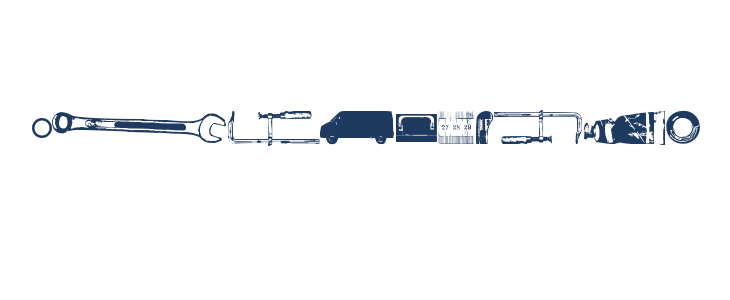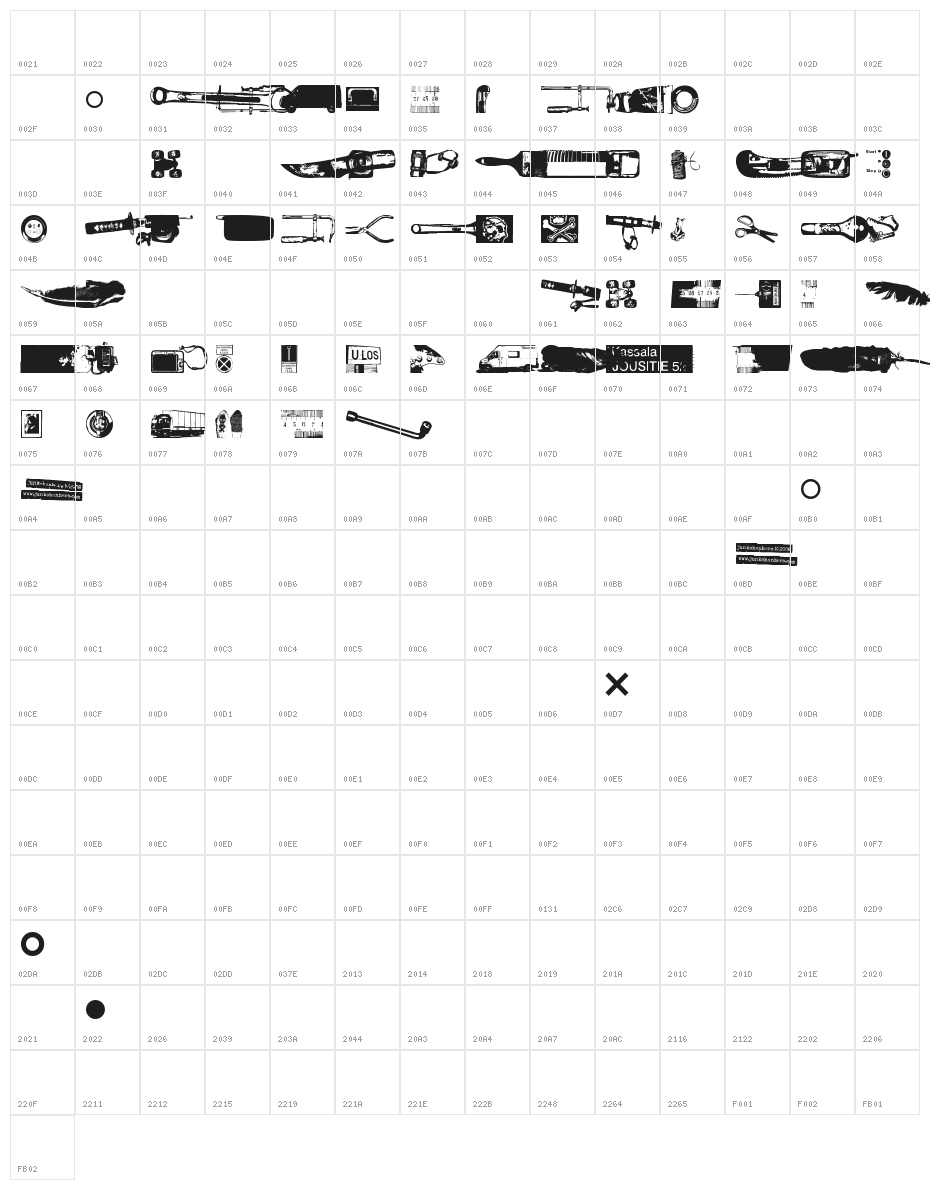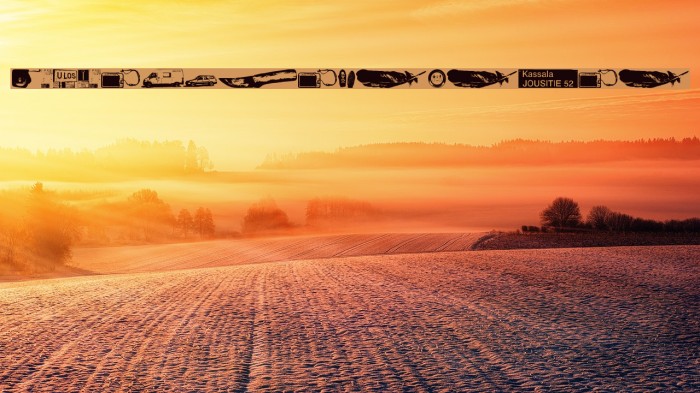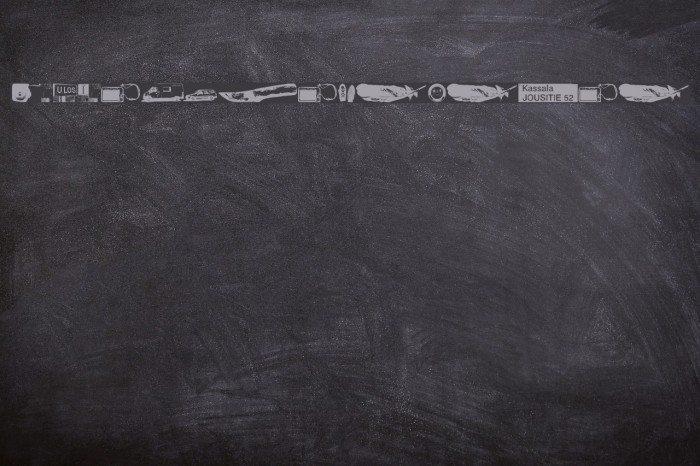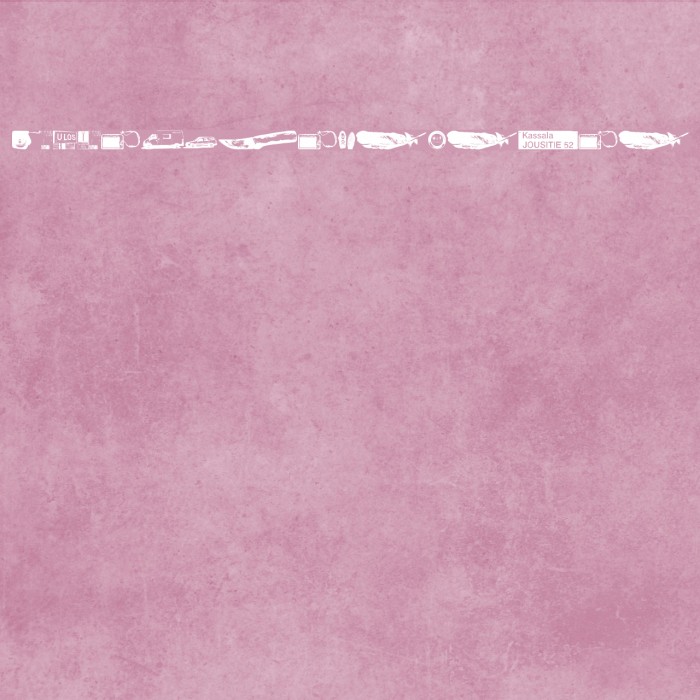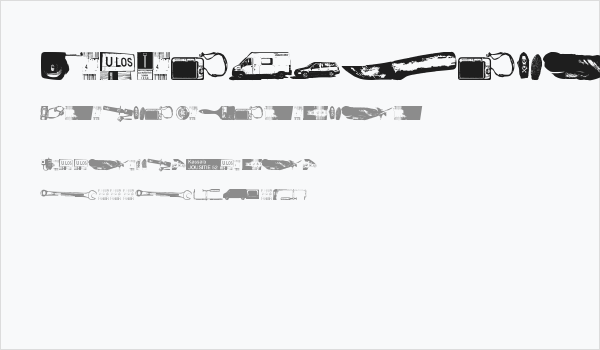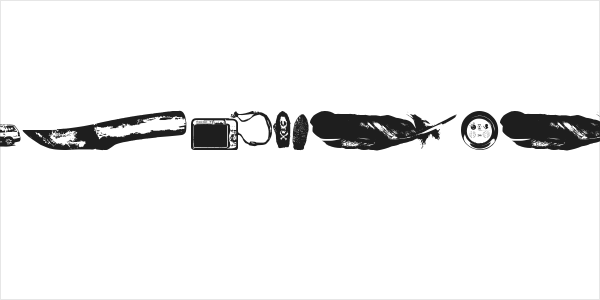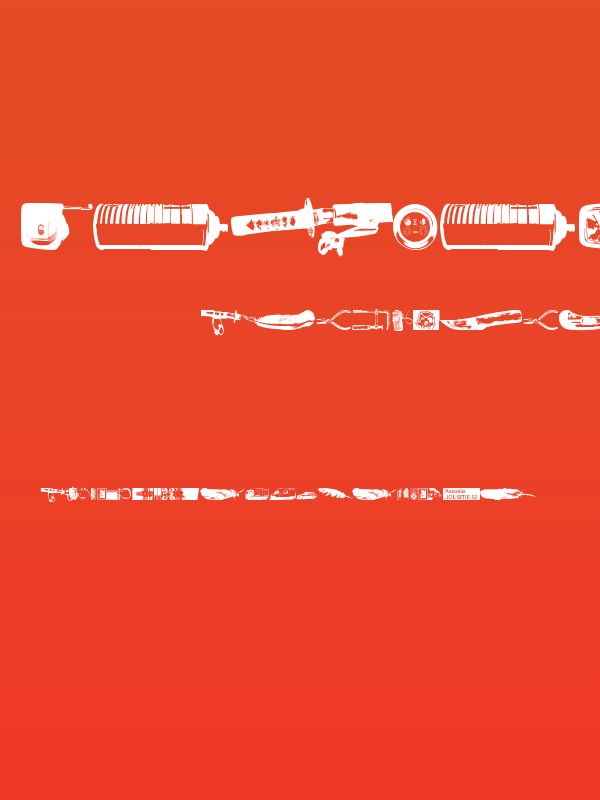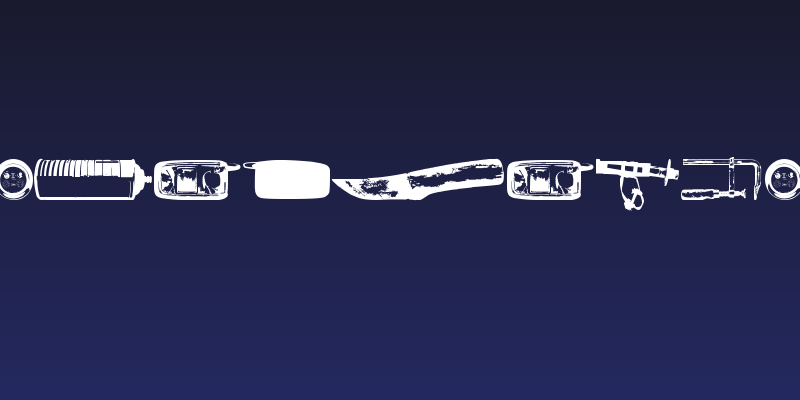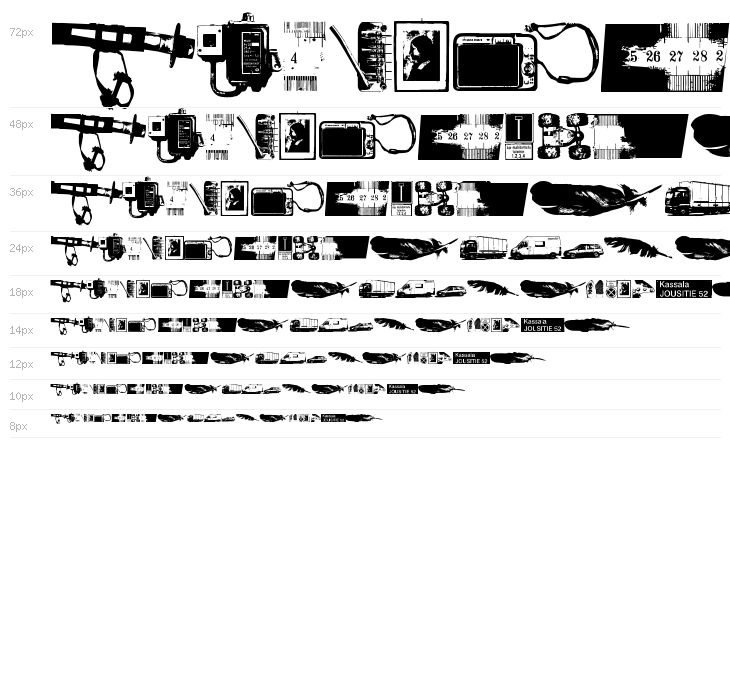
Melkein Aito Kopio Font
Melkein Aito Kopio Description
A highly decorative and experimental font constructed from black-and-white photographic images of various objects such as tools, feathers, vehicles, and signs, forming the shapes of letters and numbers in a collage-like manner.
Overall StyleDecorative, Experimental, Collage
Use CaseHeadlines, Posters, Artistic projects, Logos
Proposed ProjectsArt installations, avant-garde posters, album covers, experimental branding, zines.